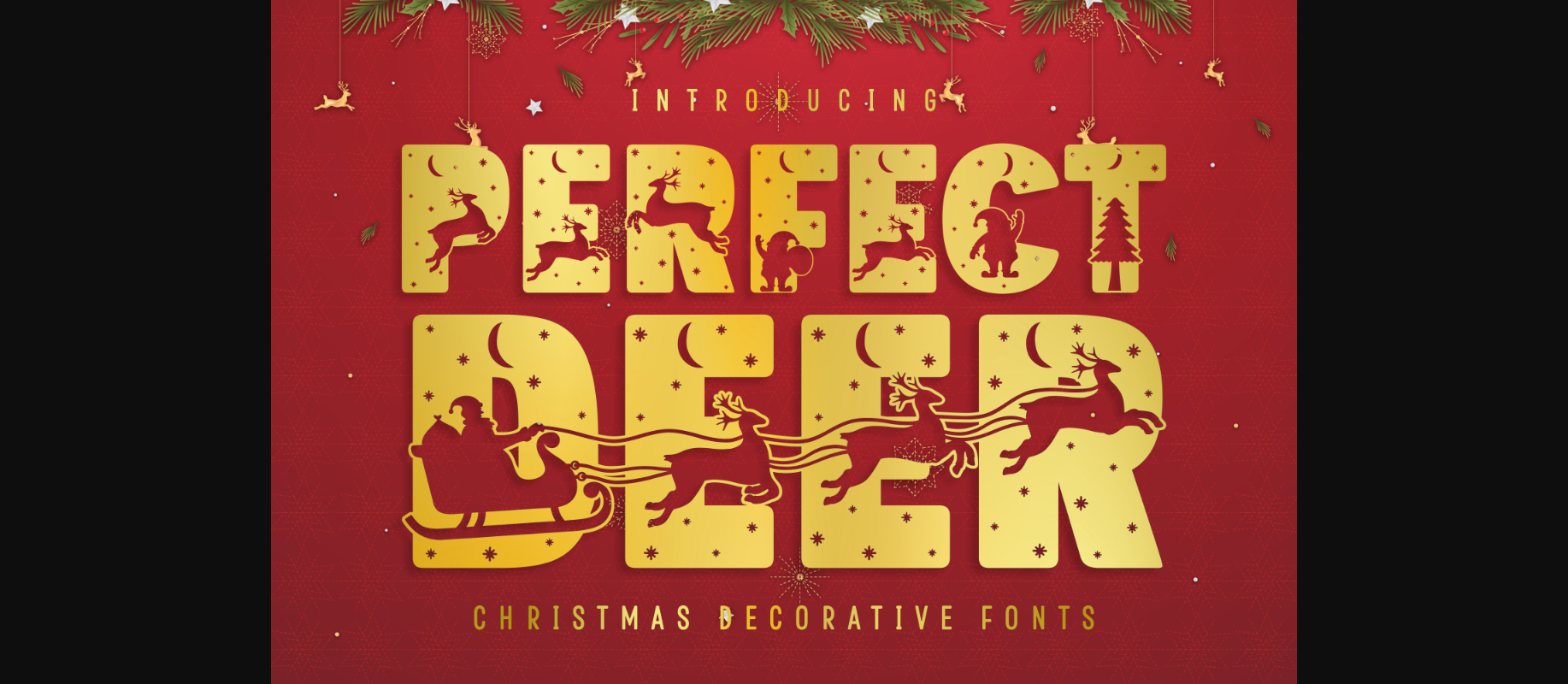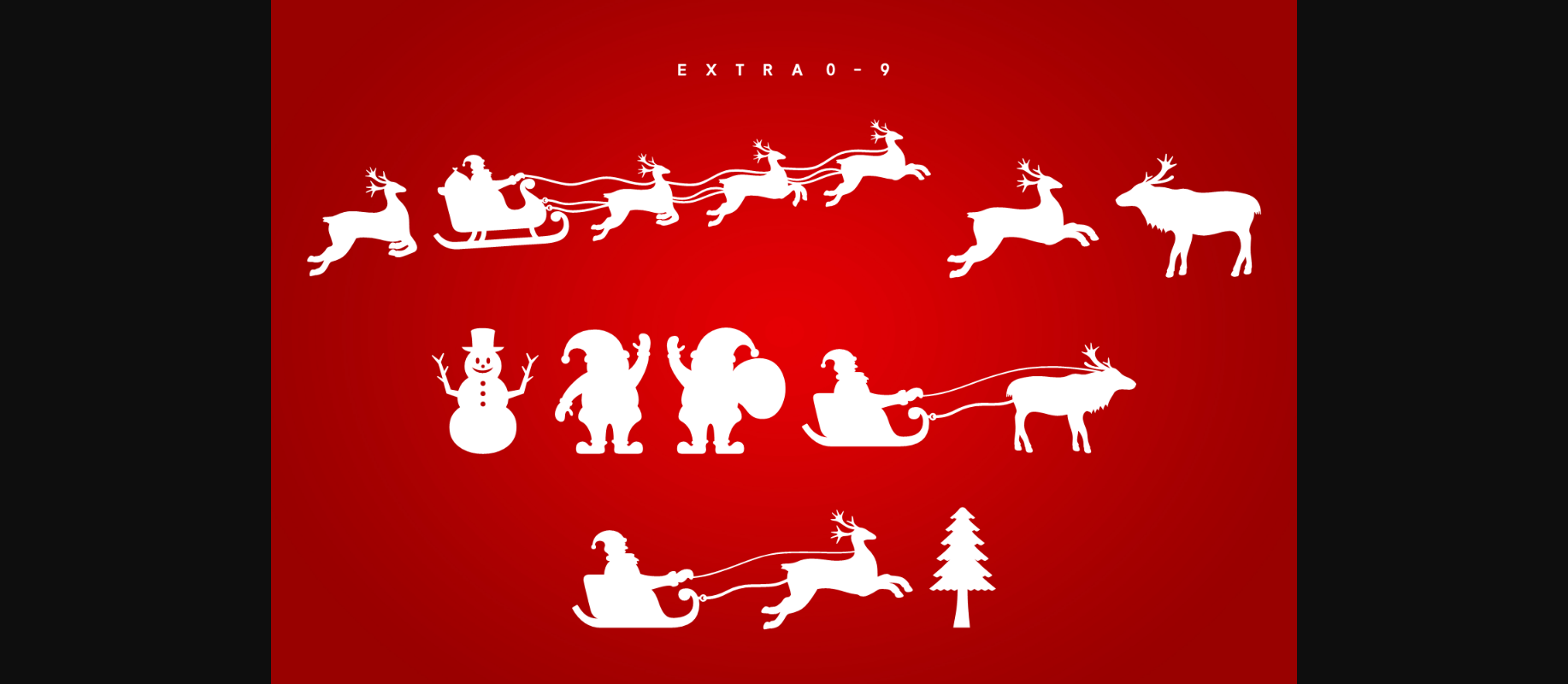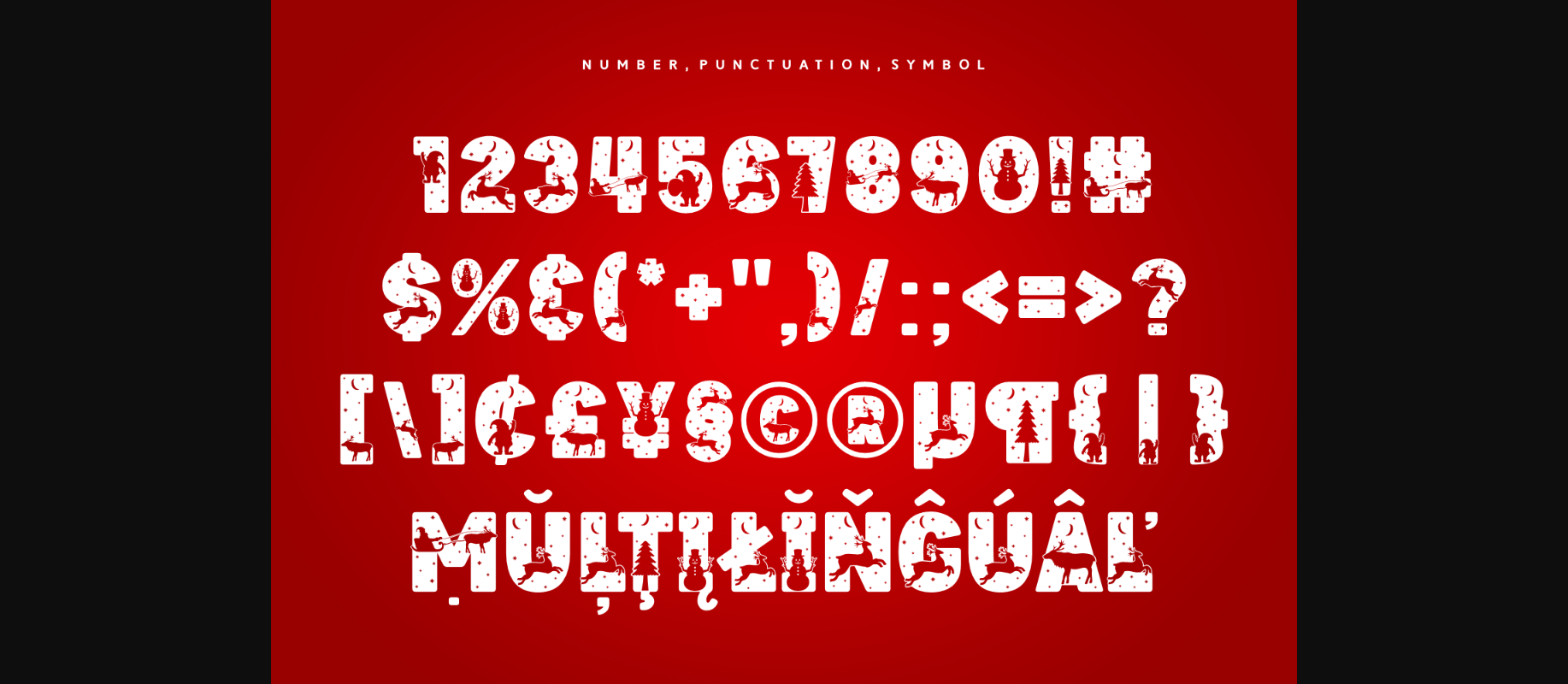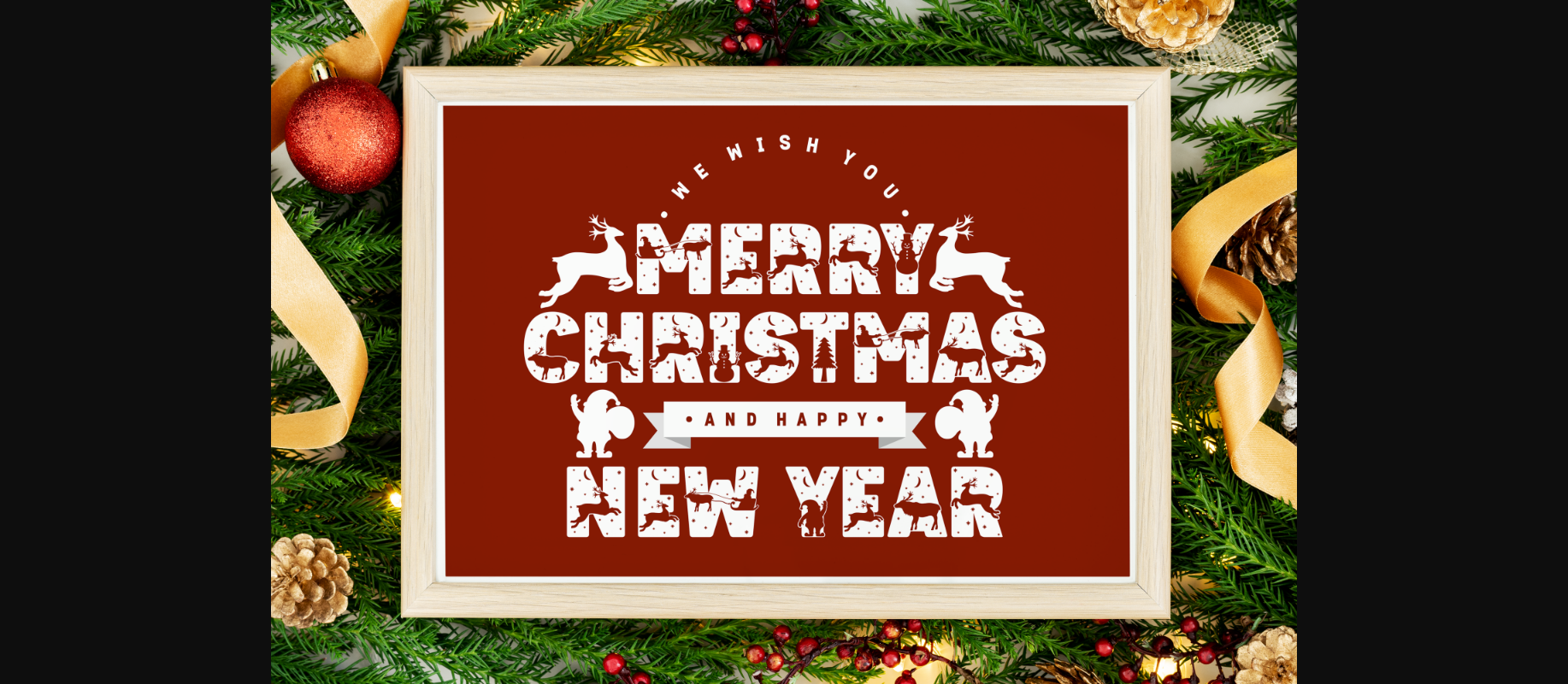
About Perfect Deer Font
Perfect Deer is a magical decorative font. Its lovely delicate ornaments will be a wonderful addition to all your festive design projects!